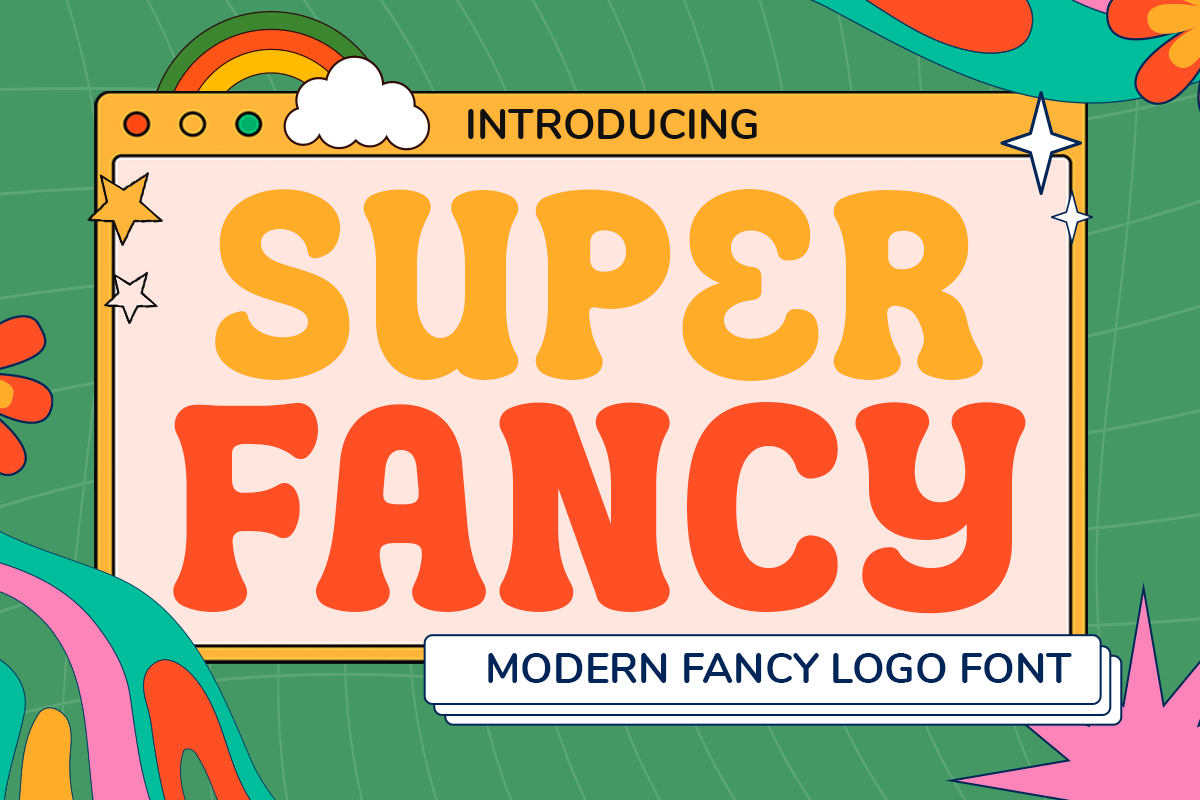
SUPER FANCY
-Modern Fancy Logo FontSUPER FANCY is a modern fancy logo font designed to bring a touch of elegance and flair to your branding projects. Inspired by contemporary trends and high-end aesthetics, SUPER FANCY combines sleek lines with intricate details to create a unique and stylish look. This versatile font is perfect for logos, branding materials, and any project that requires a sophisticated and modern touch.
The Story Behind SUPER FANCY
The creation of SUPER FANCY was inspired by the desire to blend modern design with a touch of fanciness. Drawing inspiration from contemporary fashion and art, SUPER FANCY captures the essence of elegance and creativity. Its intricate details and stylish curves make it perfect for designers looking to add a unique flair to their projects.
Best For:
Logo design
Branding materials
Fashion projects
Creative product packaging
Stylish website headers